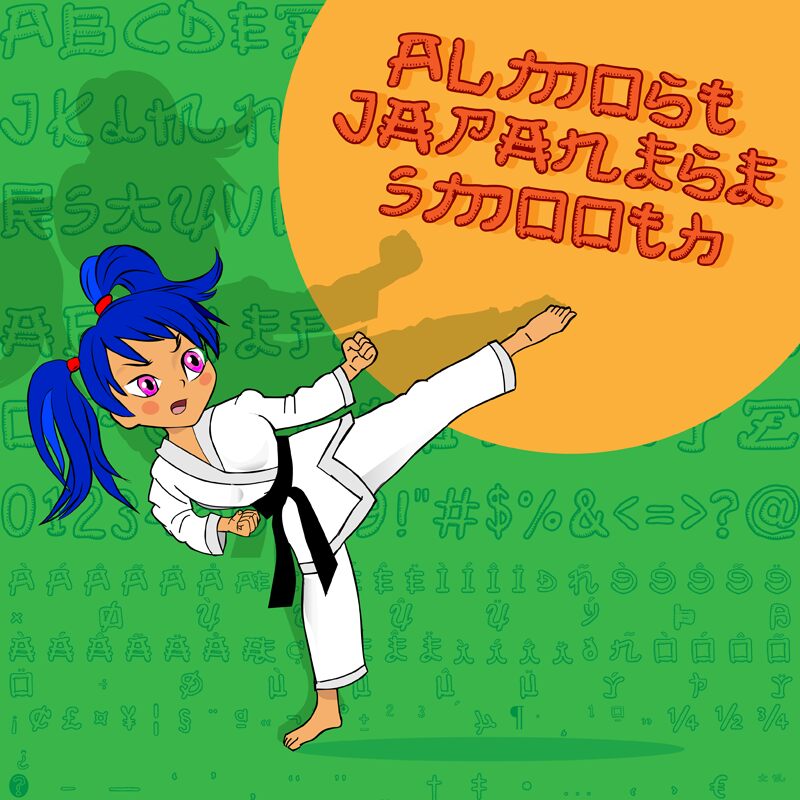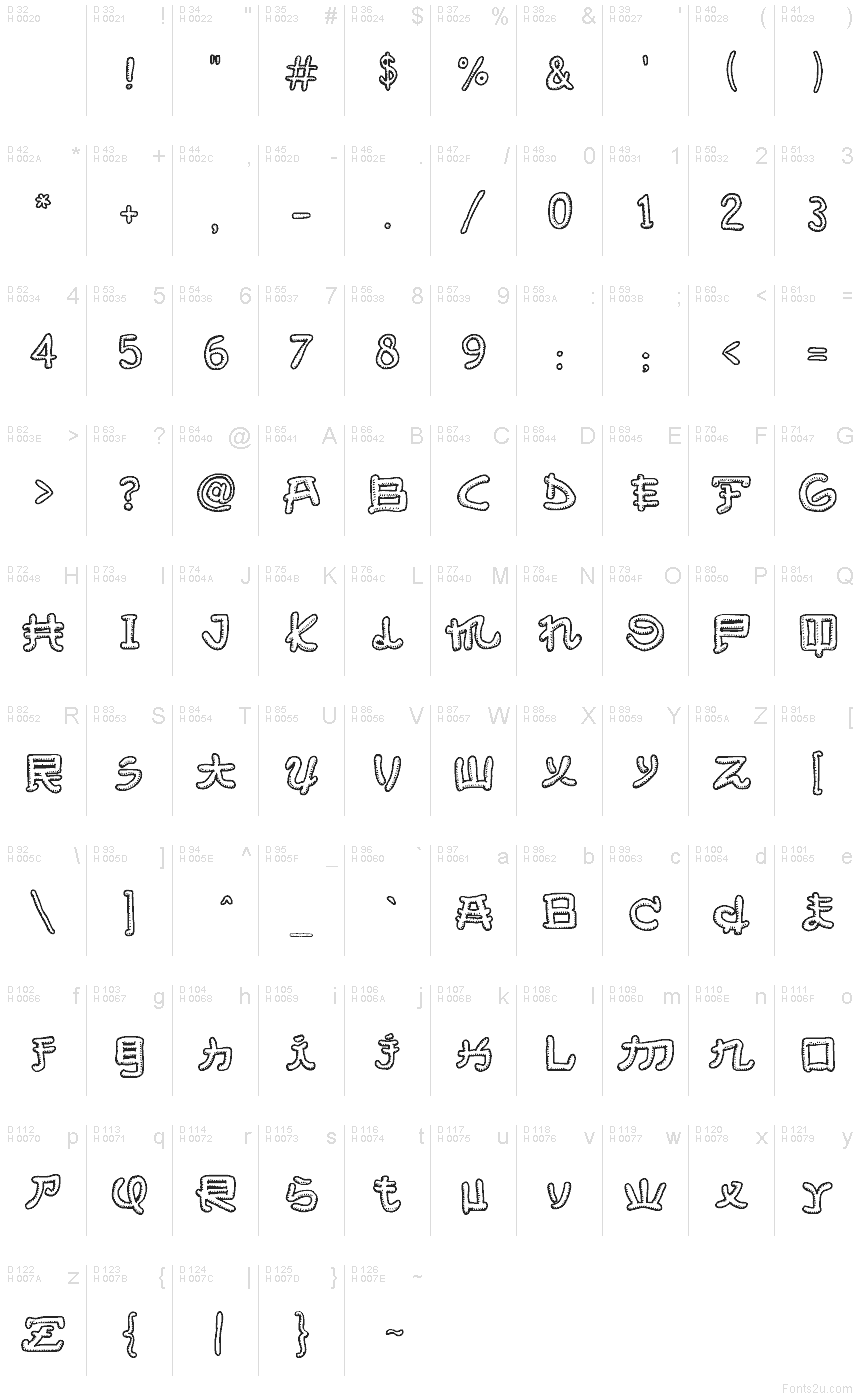
Almost Japanese Smooth Regular
Almost Japanese Smooth font by Galdino Otten Fonts is a free faux‑foreign Japanese‑style display font. Its rounded, monoline strokes loop into boxy, maze‑like shapes, creating a playful, tiled rhythm that reads boldly at a glance. The smooth, gummy edges and consistent weight conjure neon signage and noodle‑shop marks without getting fussy—made to shout in a friendly voice.
Using Almost Japanese Smooth, headlines pop on ramen menus, food‑truck wraps, retro arcade posters, snack packaging, travel zines, and YouTube thumbnails. This free font shines in short phrases and logos; keep copy tight and scale it large for maximum impact. Pair with a plain, modern sans for body text to let the bubbly forms stay center stage.